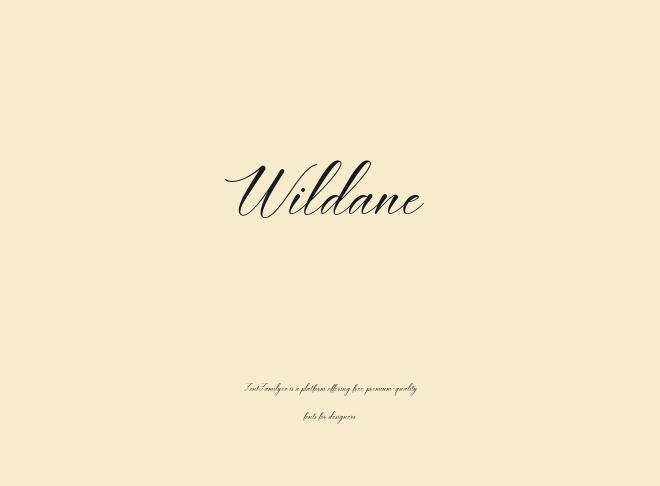
Wildane Font
Wildane Font is a beautifully crafted, rustic and playful script font that exudes a natural, handwritten style. This font, designed by the innovative team at Creative Typographers, is perfect for adding a touch of whimsical charm to any design project. With its unique characteristics, Wildane Font stands out from typical script fonts, offering an organic, free-flowing feel that is akin to hand-lettering. Ideal for a wide range of design works, this font excels in logos, posters, branding, and even on social media graphics. The playful vibe of Wildane Font makes it a great option for kid-oriented designs, while its rustic appeal suits organic or craft-themed projects. It’s a go-to choice for designers seeking to inject a warm, friendly, and distinctive touch to their designs.